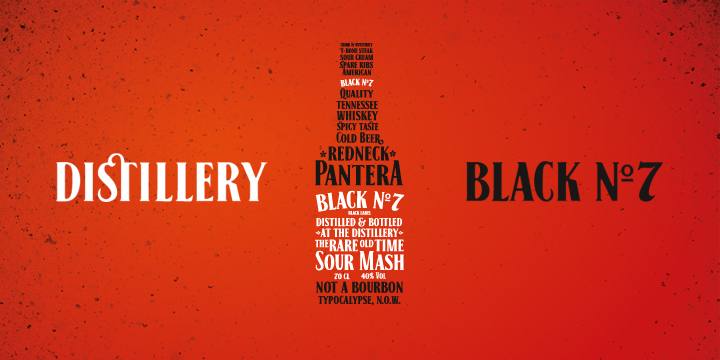
Black No.7 Font is perfect for bold headline design, impactful poster typography, striking logo creation, powerful advertising campaigns, dramatic magazine covers, commanding signage systems, intensive sports branding, and high-contrast display applications. This ultra-bold typeface excels in projects requiring maximum visual impact and commanding presence where strength meets uncompromising design authority.
What makes Black No.7 Font exciting is its unrelenting boldness and powerful character density that creates immediate visual dominance in any design context. The font features ultra-heavy letterforms with maximum stroke weight and commanding proportions that demand attention and convey absolute strength and determination. Its intensive character makes it perfect for brands and messages that need to cut through visual noise and establish immediate authority in competitive environments.
Black No.7 Font family includes various condensed and extended variations that enhance its dramatic appeal while providing design flexibility for space-constrained applications. The family typically offers ultra black, black condensed, and black extended weights, along with complementary lighter weights and alternate characters that enable dramatic typographic contrasts and powerful visual hierarchies.
Whether you're designing high-impact advertising campaigns, creating bold sports team branding, or developing commanding corporate identity, Black No.7 Font Free Download provides the perfect heavyweight solution for projects demanding maximum visual punch. This font's overwhelming presence and dramatic intensity make it essential for brands that need to establish immediate dominance and unforgettable recognition.
The massively weighted letterforms and commanding proportions of Black No.7 Font create instant visual impact that stops viewers in their tracks while maintaining surprising readability despite its extreme boldness. Its distinctive ultra-bold personality and dramatic presence make it an invaluable tool for designers working on high-impact advertising, sports, and entertainment projects. Download Black No.7 Font today and unleash the ultimate power of ultra-bold typography in your most demanding creative projects with this intensely commanding typeface.